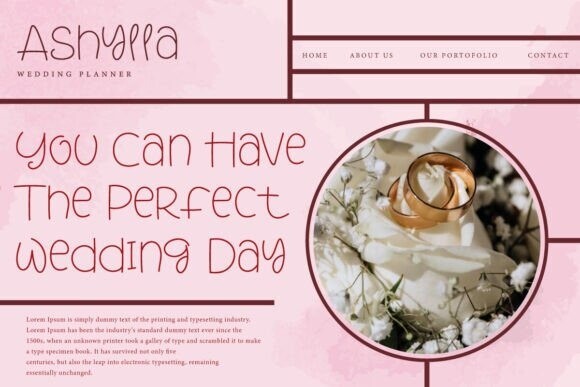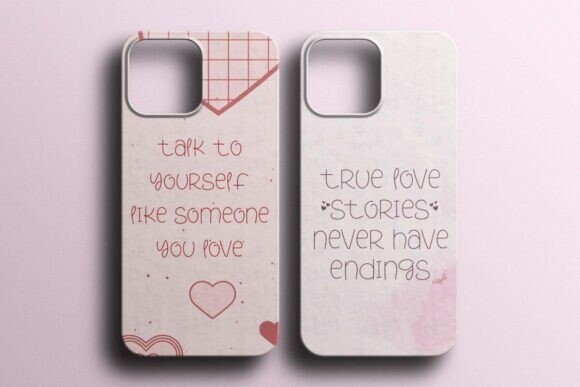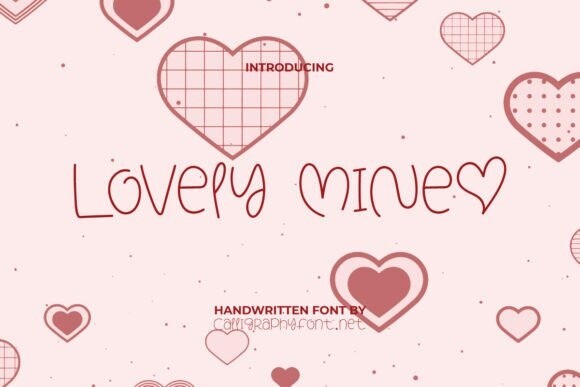
Lovely Mine Font
Lovely Mine Font is a purely romantic handwritten font with a monoline style and extra love in every character. It will be perfect to accompany you on any project, such as apps, billboards, blogs, brand logos, brochures, envelope designs, flyers, invitations, labels, menus, posters, product brands, screen print, stationery, signage, sticker, social media, thank you card, title, website, and other things that require a lovely touch.
Lovely Mine Font is a delicate feminine handwriting font, it is very lightly used with hearts to decorate and add characteristics to the font, certainly making it more beautiful and delightful for whatever the industry, such as advertisement, boutique, café, content creator, event organizer, graphic design, handicraft, homeware, jewelry, interior design, mobile accessories, photography, printing, publishing, wedding plans, etc.